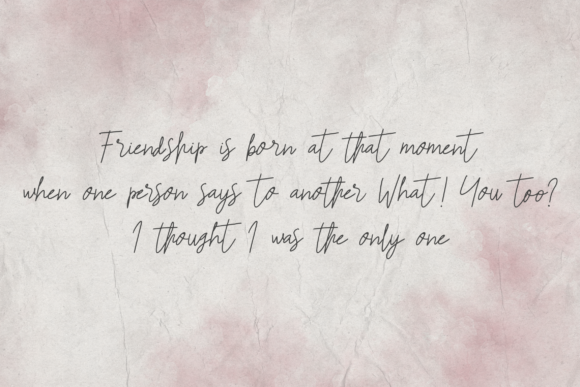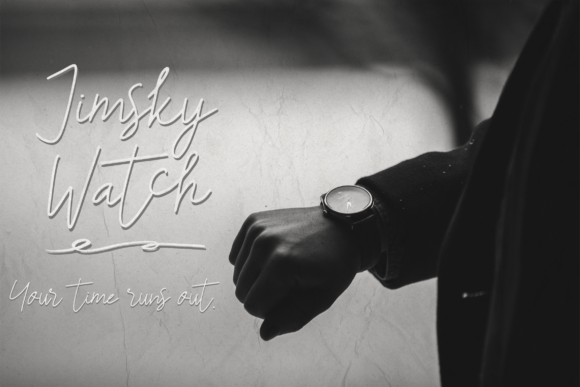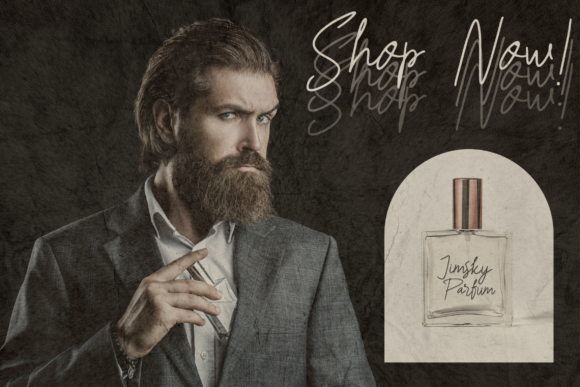
Introduction to Keithey Font
Keithey is a lovely, thin lettered and fashionable script font.
This font was particularly crafted for those who need a beautiful and refreshing look to their designs .